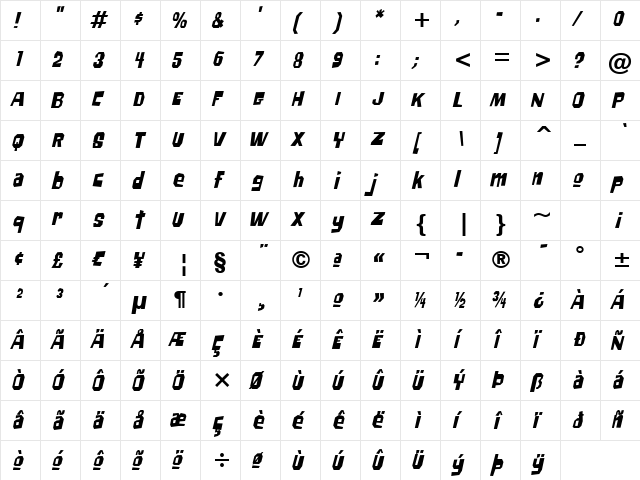
Big Chump BTN Cond Oblique Font Preview
| Style | Oblique |
Design Context for Big Chump BTN Cond Typeface
Big Chump BTN Cond offers clean, dependable letterforms without strong stylistic allegiance, making it a practical choice for designers who need flexibility. Its italic angle brings a sense of urgency and motion to the letterforms. The condensed width makes it efficient for tight spaces without sacrificing legibility.
Pro Tip: Try Big Chump BTN Cond for annotation and caption copy alongside an upright companion — the contrast in angle creates a dynamic but ordered typographic system.